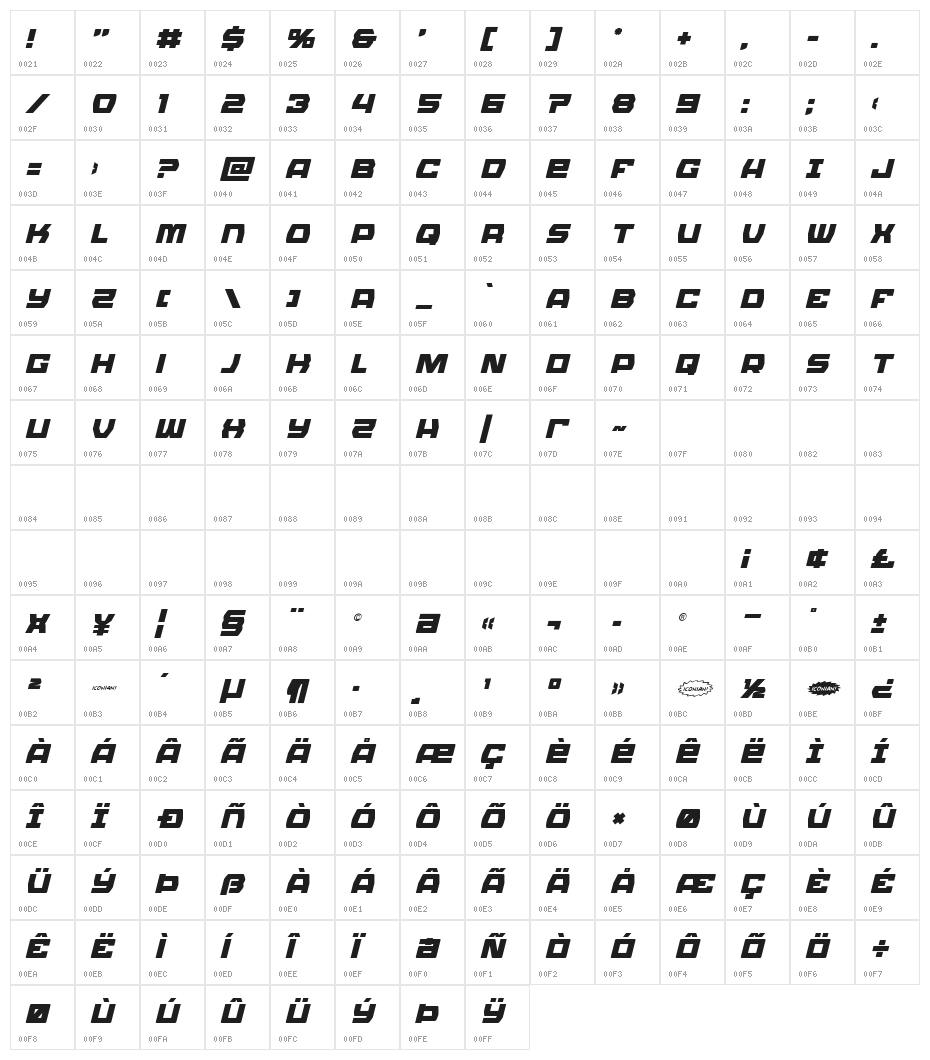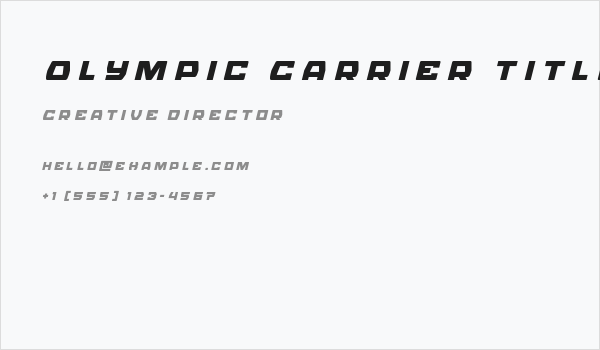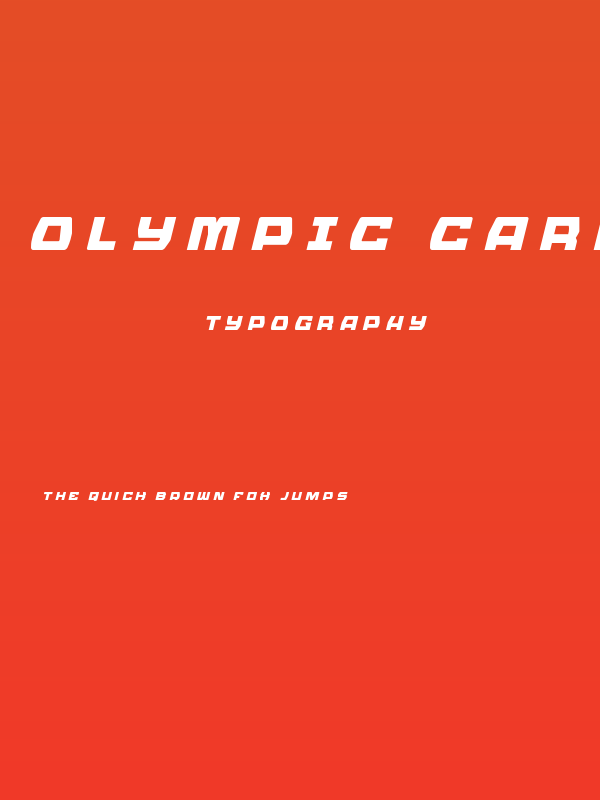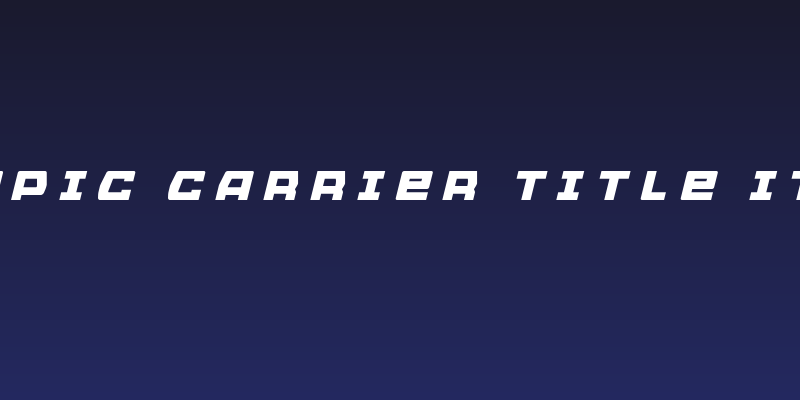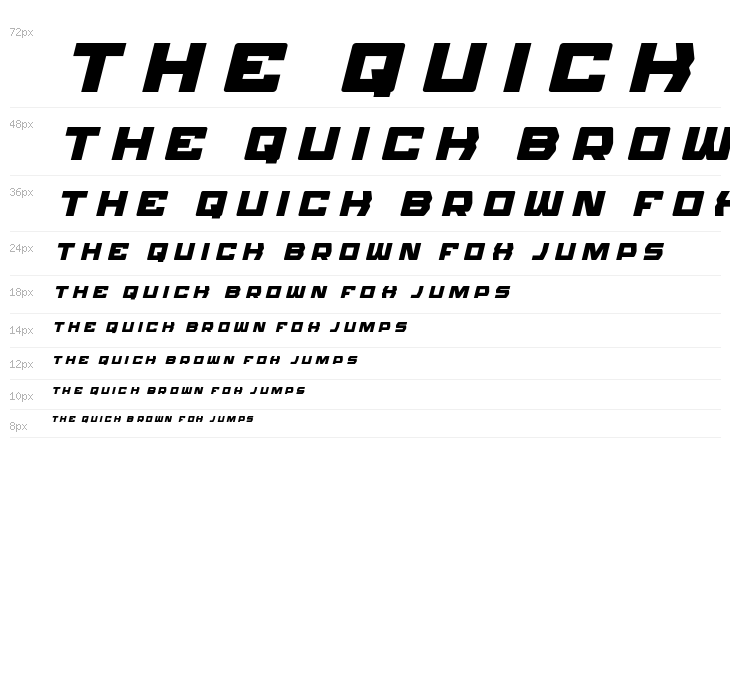
Olympic Carrier Title Italic Font
Olympic Carrier Title Italic Description
This font features a bold and dynamic style with a strong italic slant, giving it a sense of motion and energy. The characters are blocky and geometric, with sharp angles and a consistent stroke width that conveys a modern and robust appearance. The uppercase and lowercase letters maintain a uniform height, enhancing readability while preserving the font's unique character. The numerals are equally bold and align seamlessly with the alphabet, ensuring consistency across different types of content. Special characters are designed to match the overall aesthetic, making this font versatile for various applications.